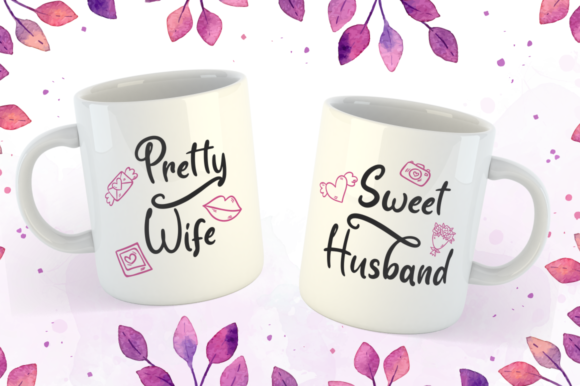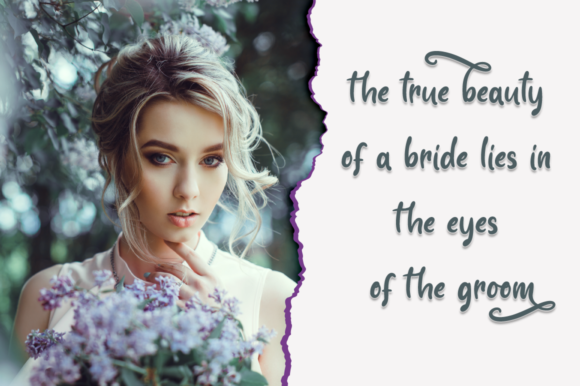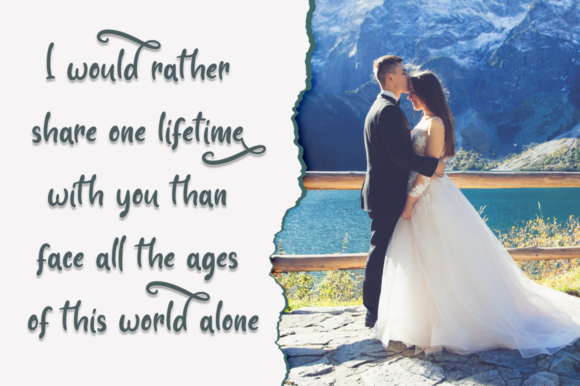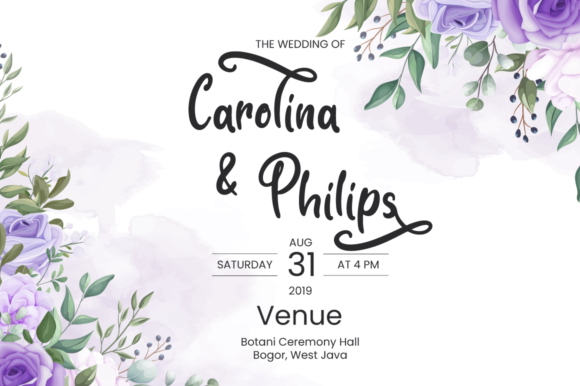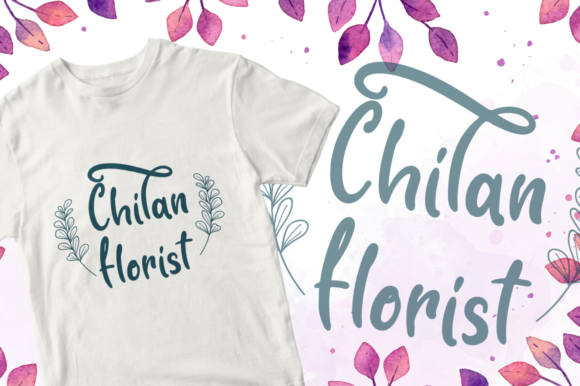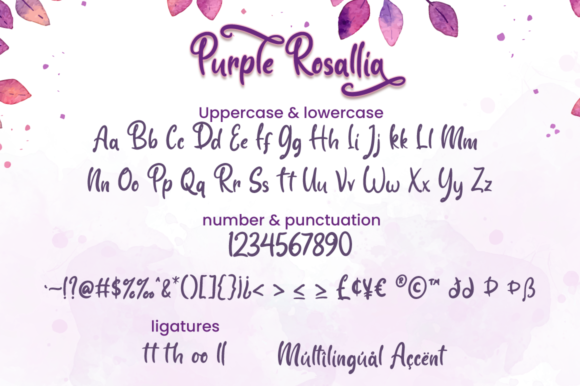
Introduction to Purple Rosallia Font
As I sat at my desk, surrounded by scraps of paper and half-finished craft projects, I stumbled upon the perfect combination of creativity and elegance – the Purple Rosallia Font. It was as if the delicate, handwritten letters danced across the page, inviting me to bring my imagination to life. The moment I saw it, I knew I had to share this beautiful font with fellow designers and craft enthusiasts.
The Purple Rosallia Font is a treasure trove of design inspiration, perfect for adding a touch of sophistication to your creative projects. With its simple yet elegant design, this font is a must-have resource for any designer looking to elevate their work. Whether you’re working on a high-quality craft design or a digital project, the Purple Rosallia Font is sure to impress.
Key Features of Purple Rosallia Font
- High-quality, elegant script font perfect for creative projects, offering a unique touch to any design.
- Includes a range of ligatures and swashes, adding a touch of sophistication to your design.
- Unique, cursive design with a touch of whimsy, making it perfect for creative projects that require a distinctive look.
Honest Review: Purple Rosallia Font
As a designer, I’m always on the lookout for high-quality design resources to elevate my creative projects. Recently, I came across the Purple Rosallia Font, and I’m excited to share my honest review with you.
- The font features a beautiful, hand-drawn design with a unique and elegant style that’s perfect for creative projects.
- The font is not suitable for use as a logo or branding element, as it’s not scalable to a small size without losing clarity.
Overall, I’m impressed with the Purple Rosallia Font, and I think it’s a great addition to any designer’s toolkit. While it has some limitations, the benefits far outweigh the drawbacks. I’d highly recommend it for creative projects that require a unique and elegant font style.
Tips for Getting the Most Out of Purple Rosallia Font
For the best results, use the Purple Rosallia Font on a high-quality design resource with a transparent background. Experiment with different font sizes and styles to create a unique and eye-catching design.